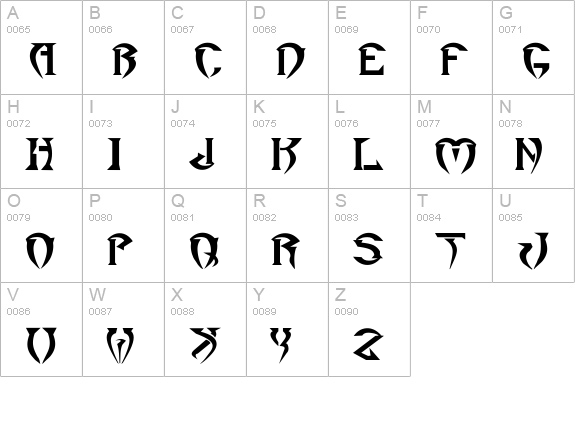
Roar Font Details
Roar font is a bold and striking typeface that exudes power and strength. With its sharp edges and commanding presence, this font is perfect for making a statement in your designs. The Roar font is free to download at FontsMarket.com, where you can easily access this versatile and impactful font for all your creative projects. Add a touch of fierceness to your designs with the Roar font and watch them come alive with energy and intensity.